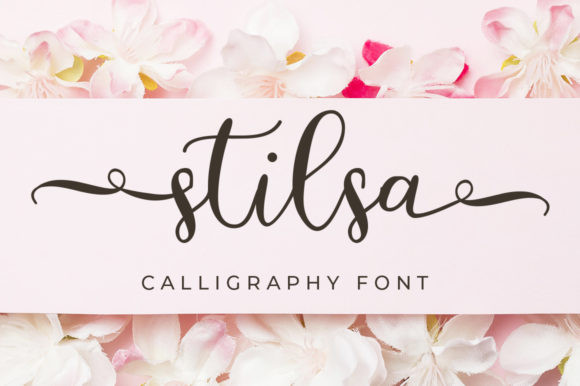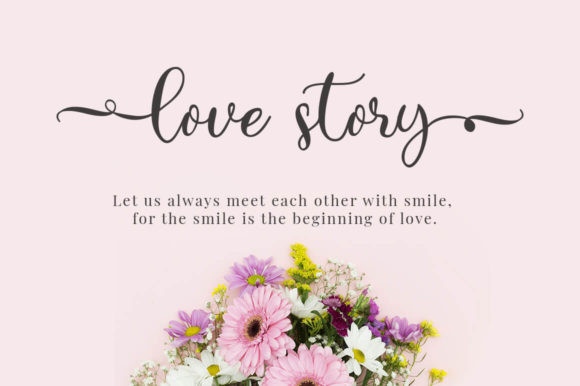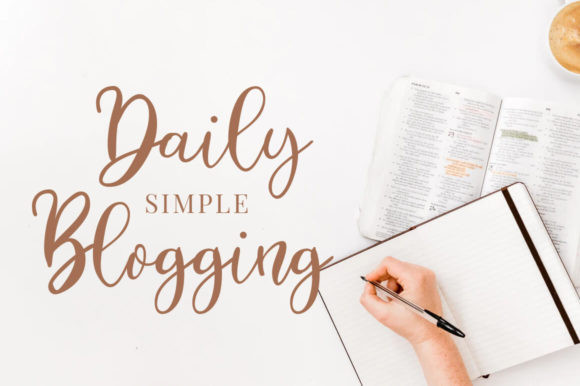
Stilsa Font
Stilsa FontStilsa feels equally charming and elegant. It looks stunning on wedding invitations, thank you cards, quotes, greeting cards, logos, business cards and every other design which needs a handwritten touch.